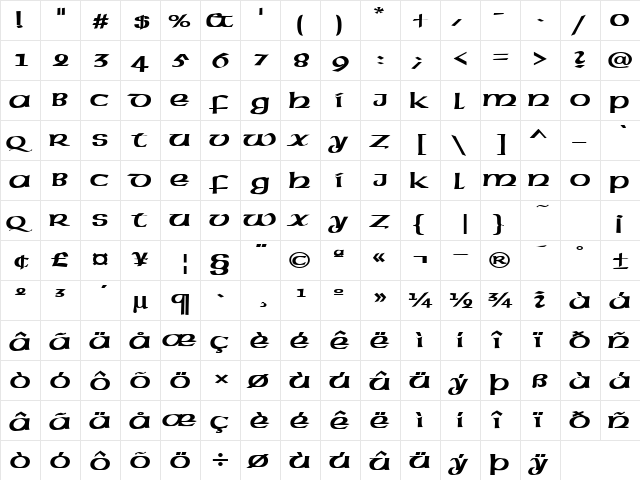
Celtic-Extended Bold
Design Context for Celtic-Extended Typeface
Celtic-Extended takes a measured approach to typography — its balanced proportions and neutral character make it a reliable workhorse for both digital and print work. Its bold stroke weight gives it real presence on the page.